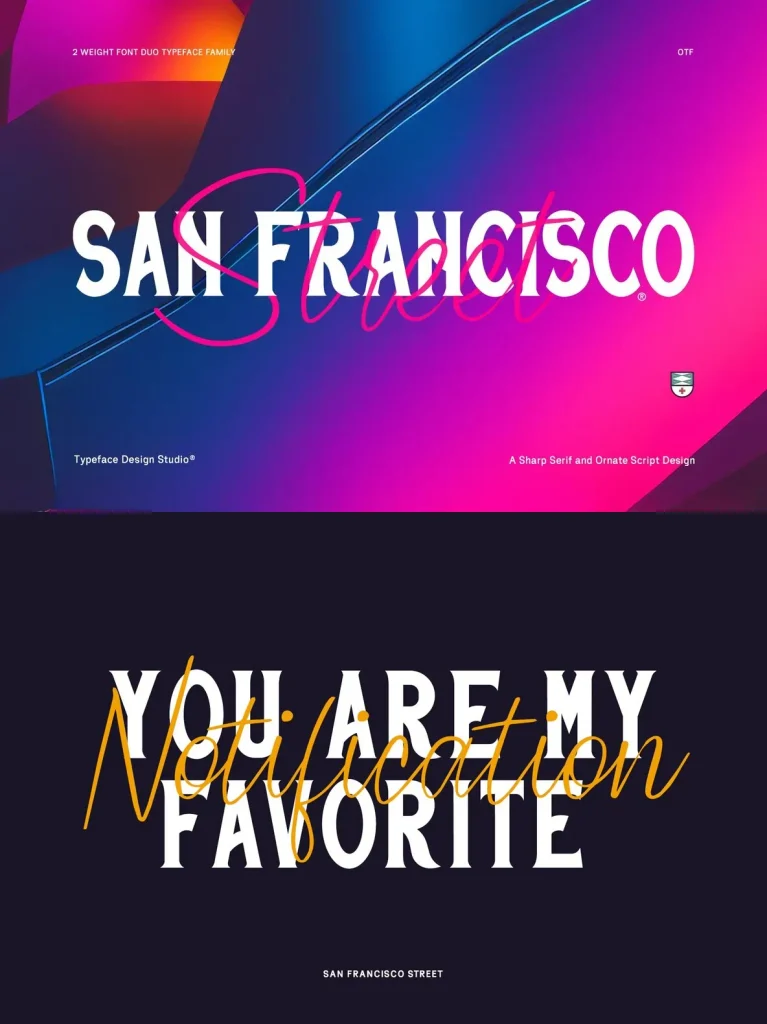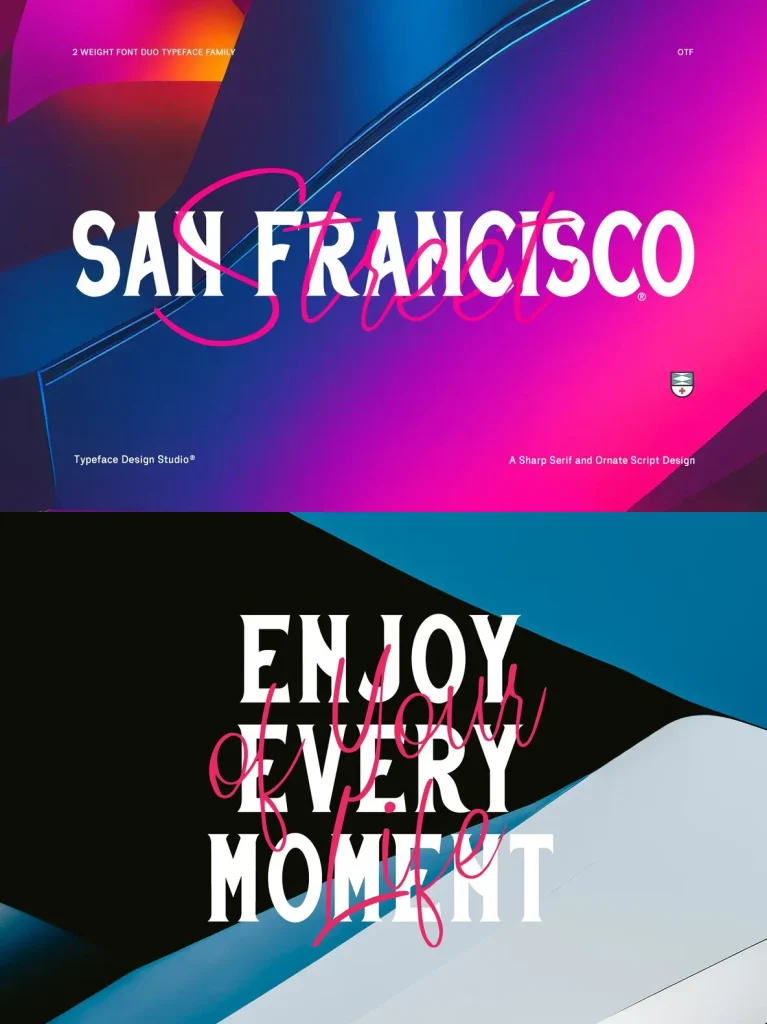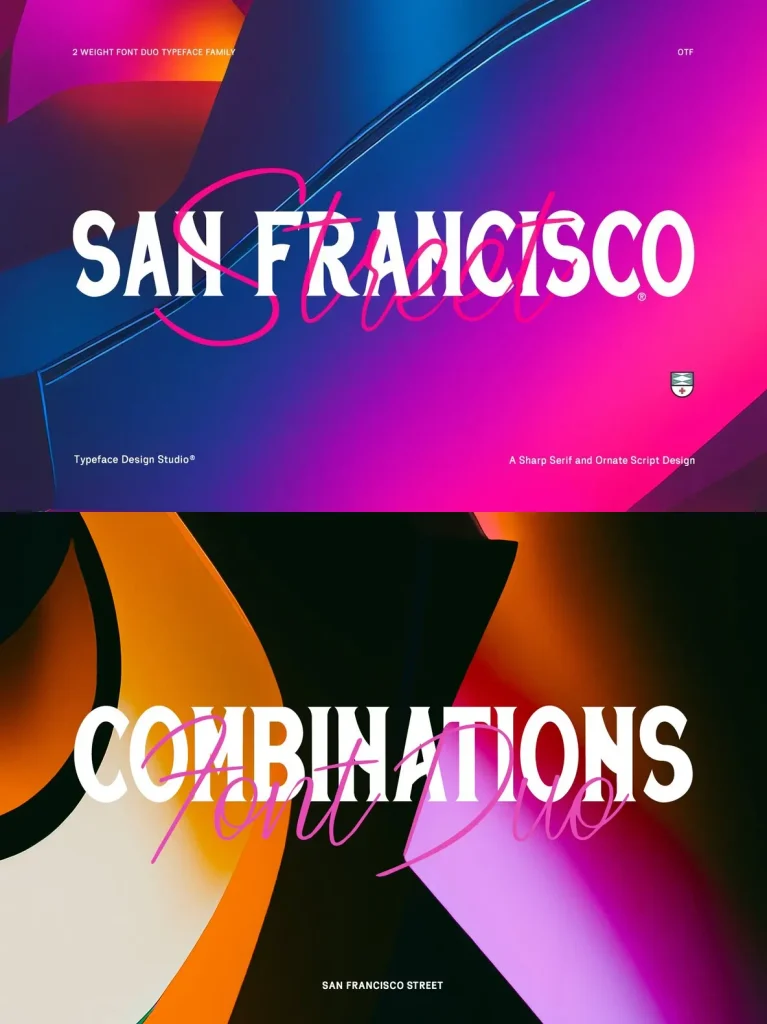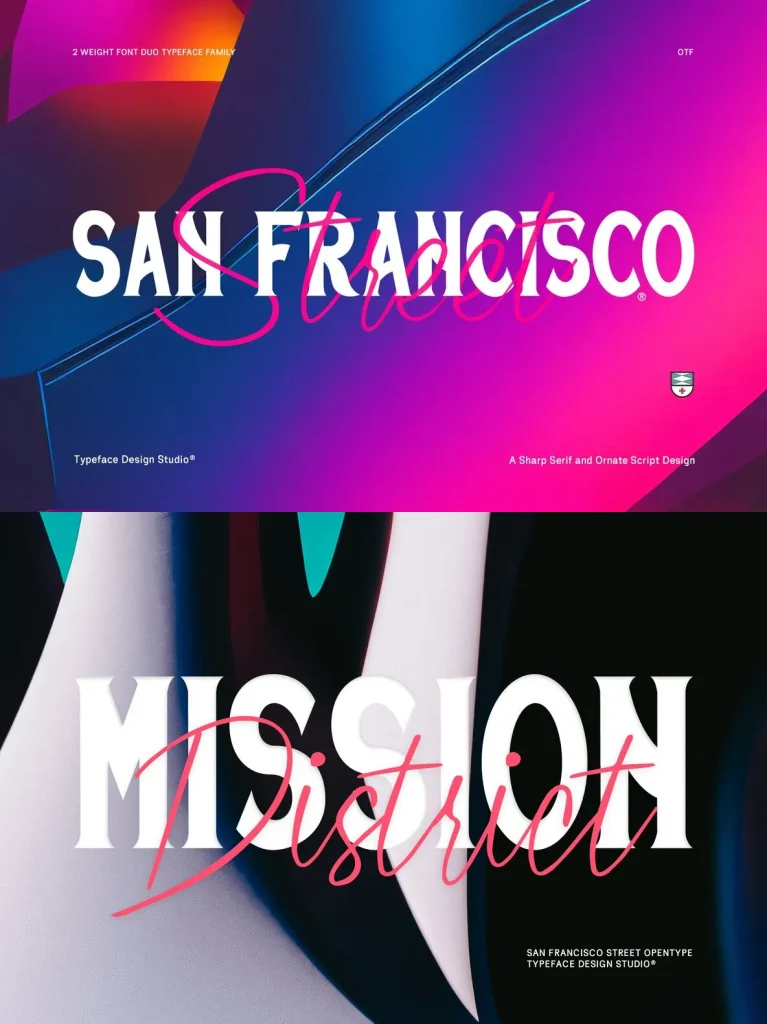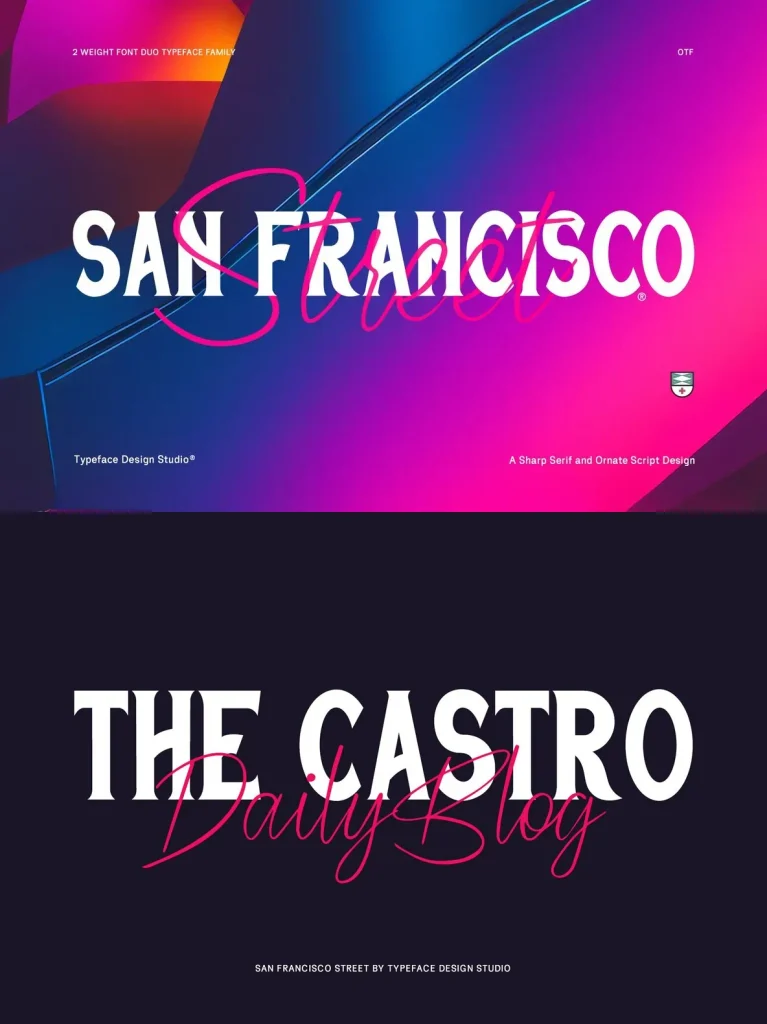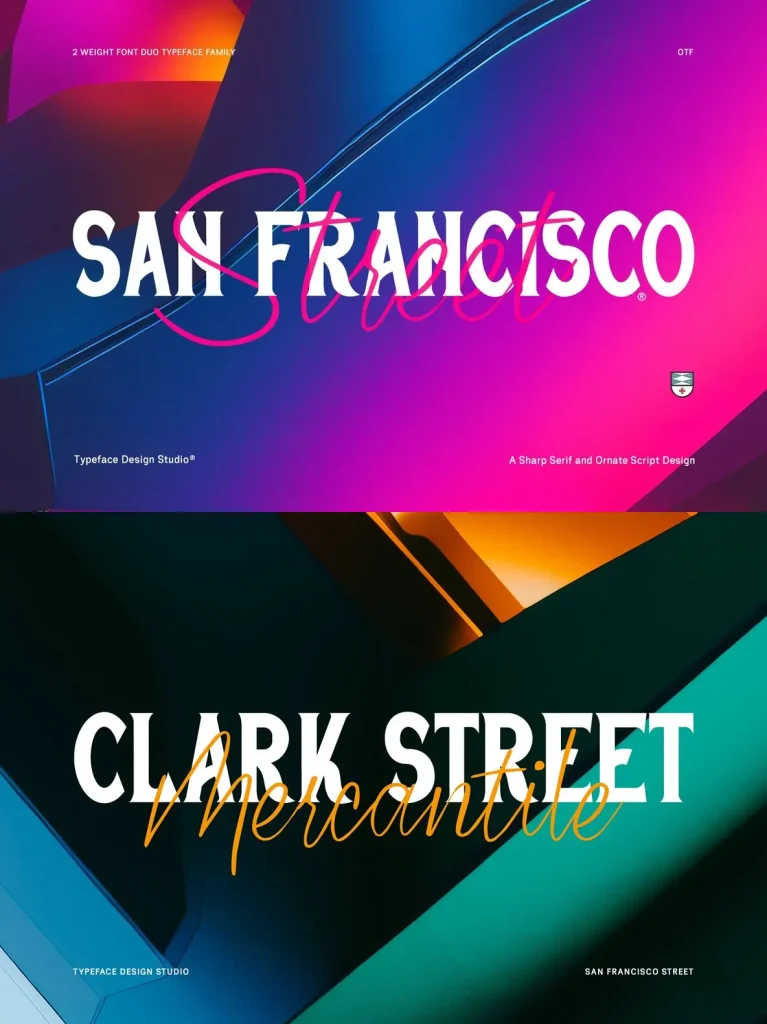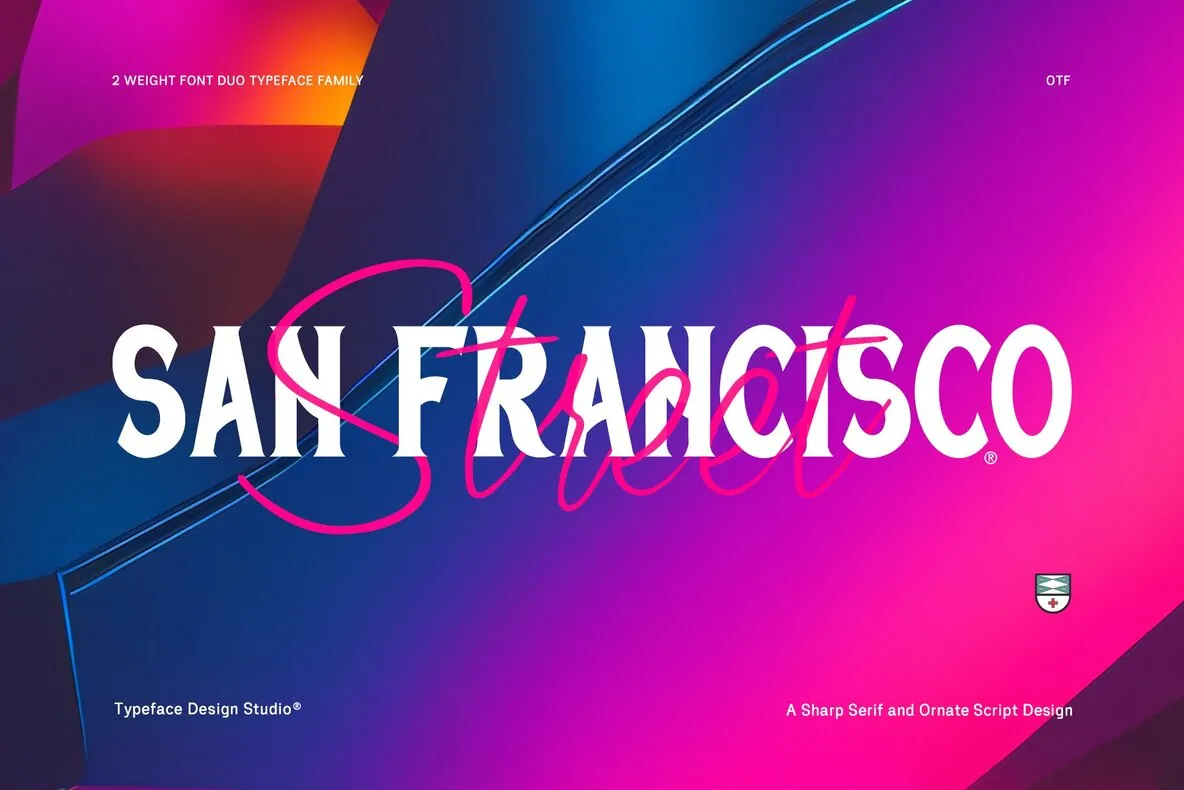
The “San Francisco Street” type family is an elegant font duo consisting of a serif font and a script font that work together to create unique and appealing font combinations perfect for all things graphic design, branding, and marketing. The sharpness of the serif font combined with the more ornate script font makes it easy to differentiate titles, logos and other online material while still bringing together all the creative possibilities.
Whether it’s packaging designs, blogs, social media or anything else related to the ever growing industry of graphic design – San Francisco Street font will give your content that polished look making it stand out amongst its competitors.